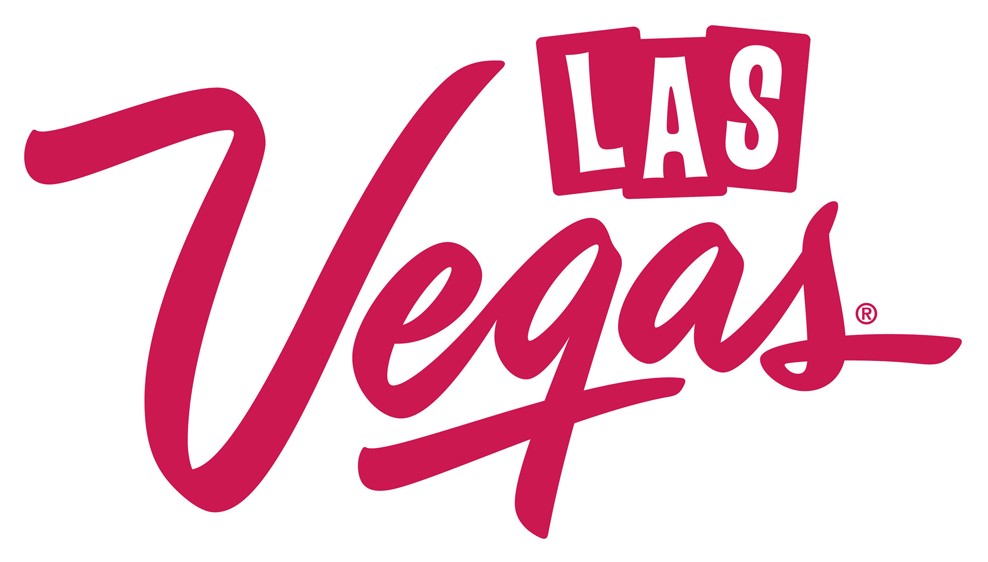
Las Vegas Font
Las vegas font is considered as the fabulous text generator and it is quite similar to the castaway font and present here for free download. A very well-known content fabric author from courgette font the all proper reserved for this stylish typeface. And he creates it for financial rolling stone font present-day writing and is derived. He has taken the concept from which changed into as fast as released.
In this manner. It has supported about a hundred and ten kinds of worldwide languages. Las Vegas Font Free Now that you could able to moreover be known as it the winning-day model of the bakery font. Because of the reality now it has contained the entire ancient elements with power.
The complete letters collectively with this specific font feature pinnacle-notch based totally completely certainly in truth format. This typeface is likewise indexed within the google fonts. Download It has availably pinnacle-notch in an unmarried huge type but this type has many types of d din font. Furthermore, proudly owning the layout.
A famous typeface for folks that love on foot with lettering is veneer font. Its bubbly look also can want to make this an high-quality font. The amazing a part of that top-notch typeface is that it protected. So, do not make any bypass for using it to your capabilities.